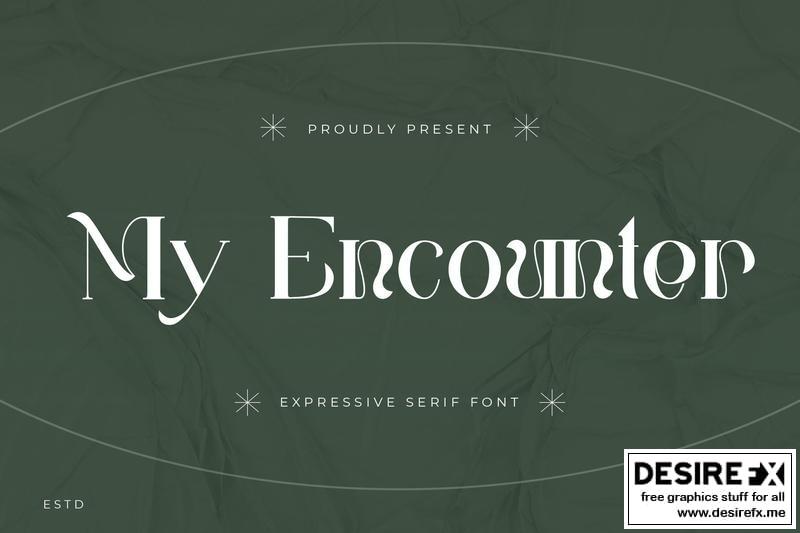
My Encounter – Expressive Serif Font H83U6B2
My Encounter is an expressive serif font.
This serif font will be the ideal choice for any cool project or great design you wish to develop.
Features:
– Uppercase
– Lowercase
– Symbols & Punctuation
– Numeral
– Ligature
– Alternate
– Multilingual Support